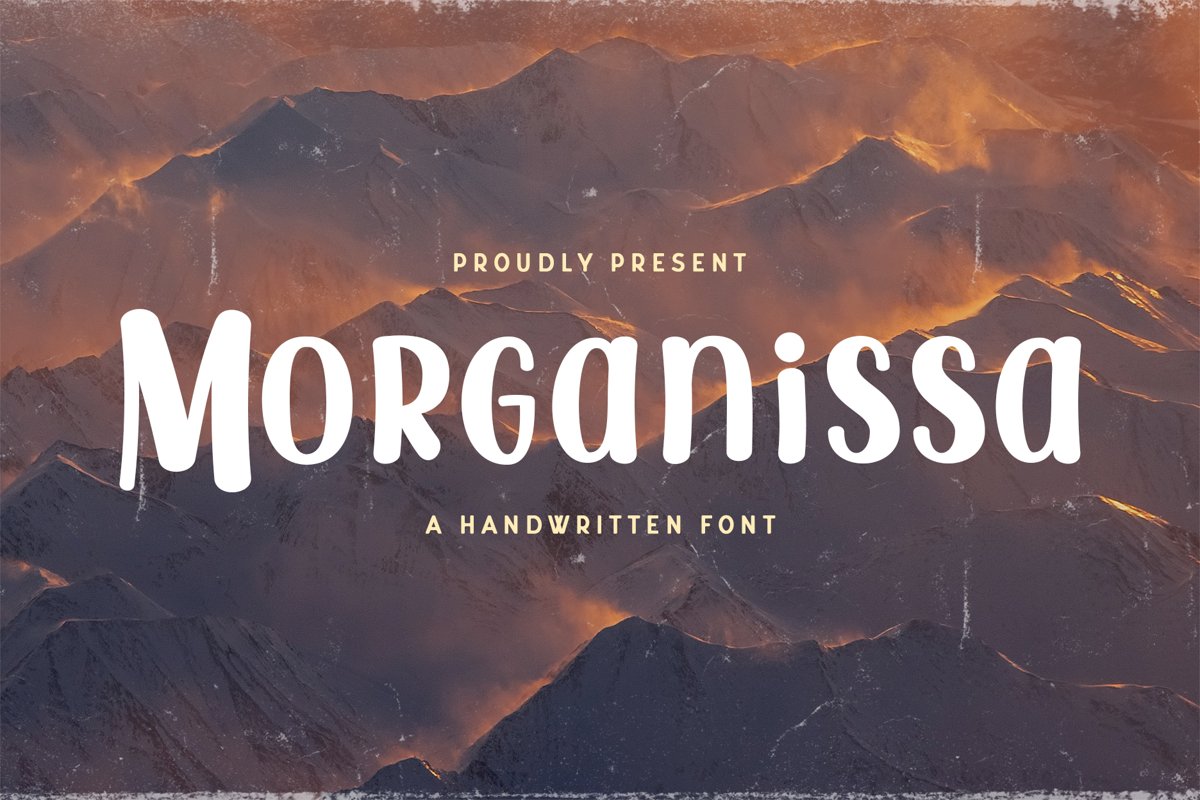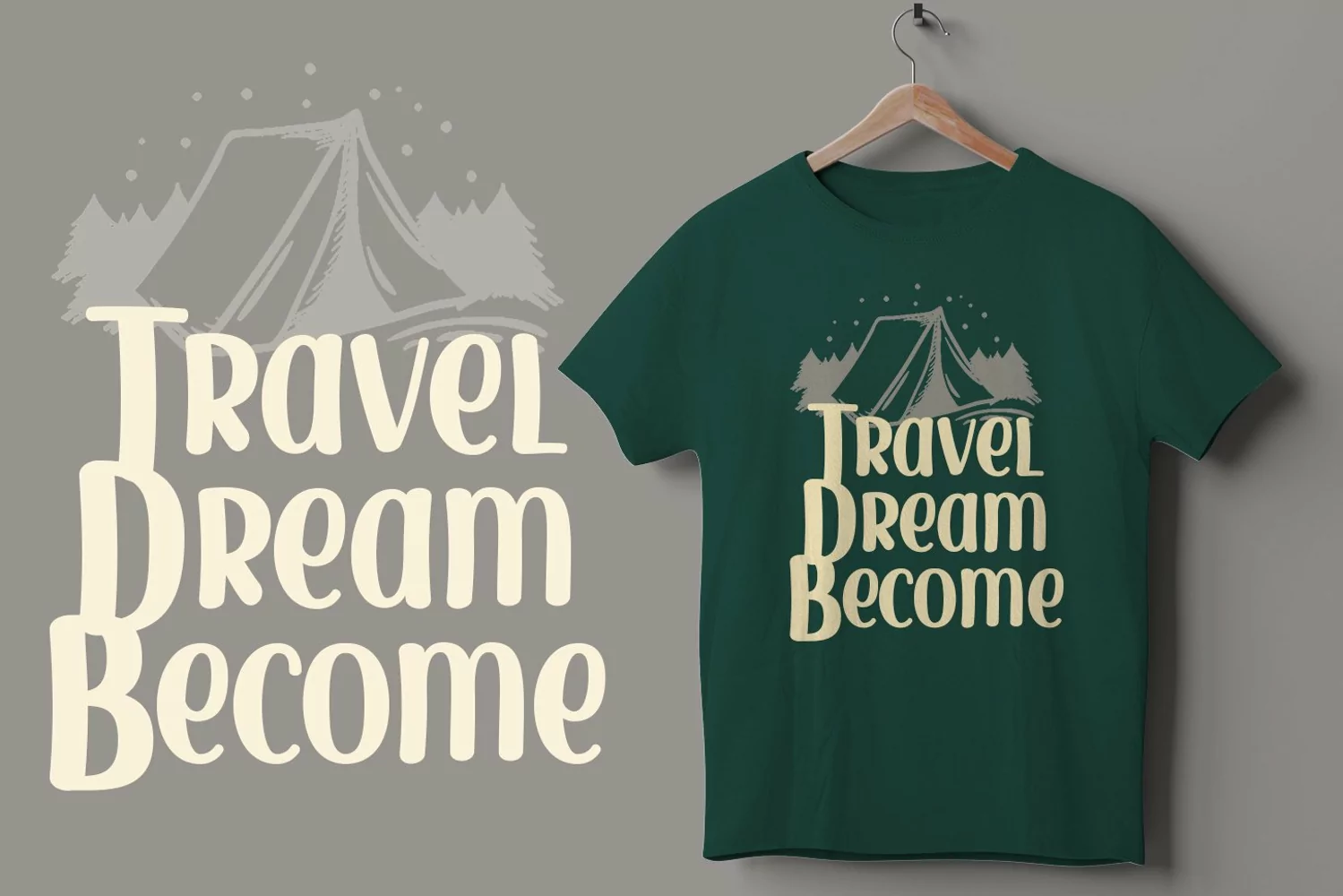
Morganissa is a display typeface. Perfect for display, quotes, packaging, merchandise, t-shirt, logo, logotype, branding, emblem, badges, crafting needs and many more.